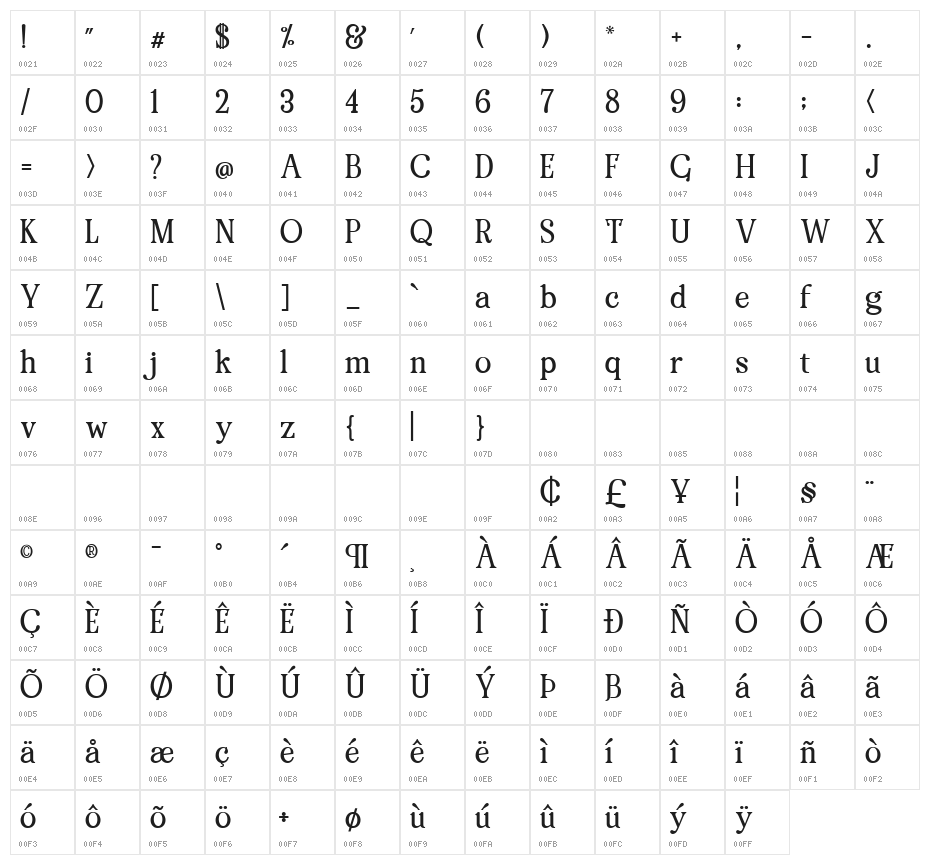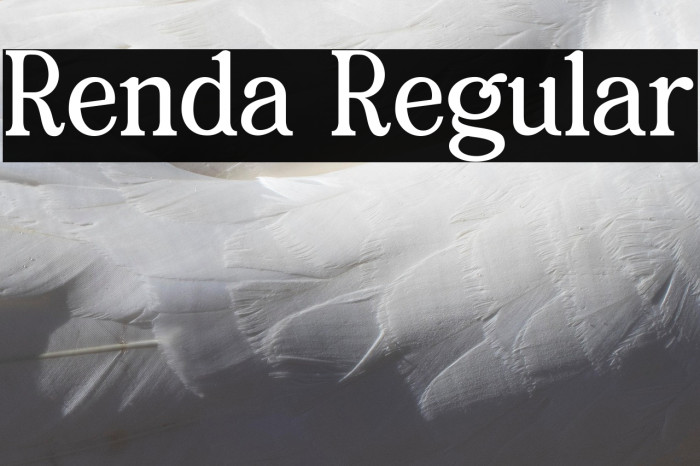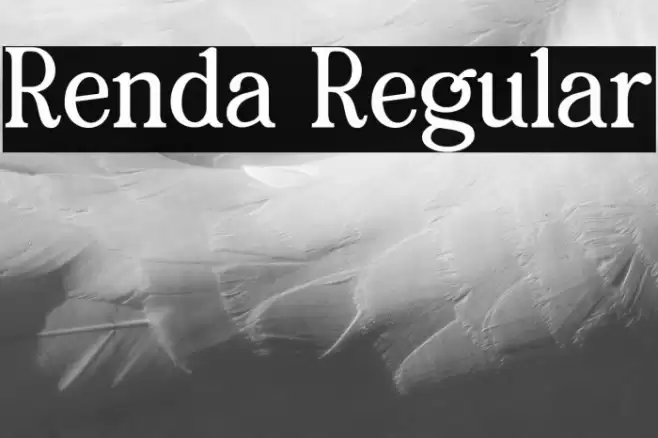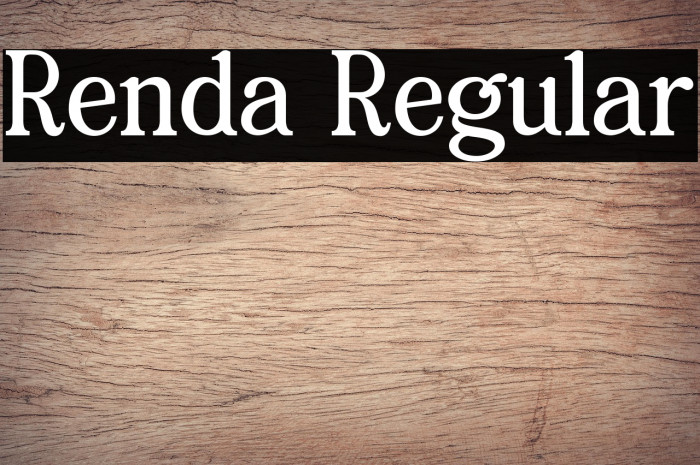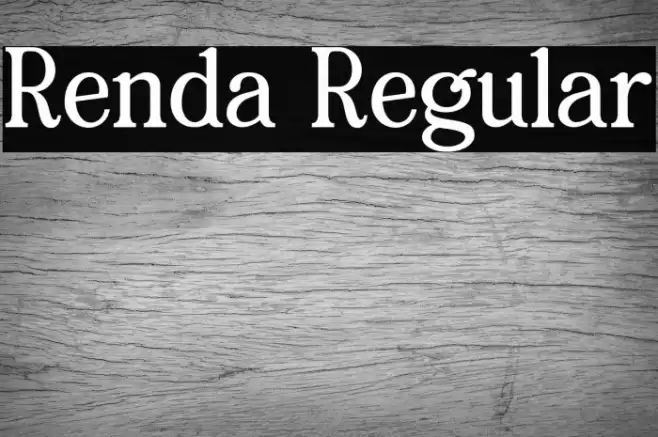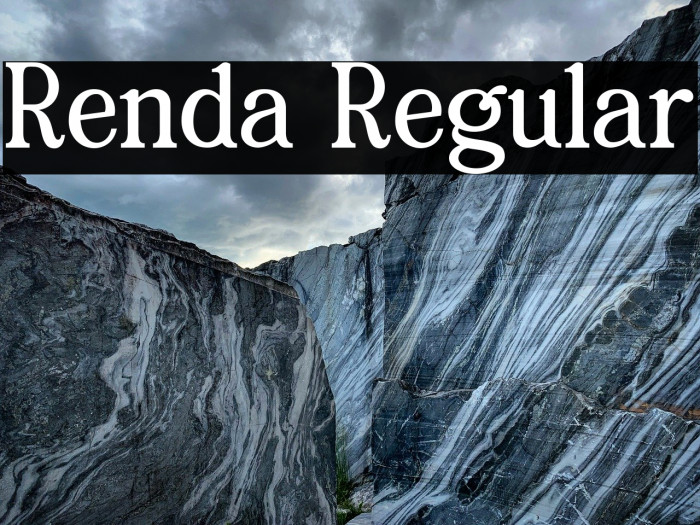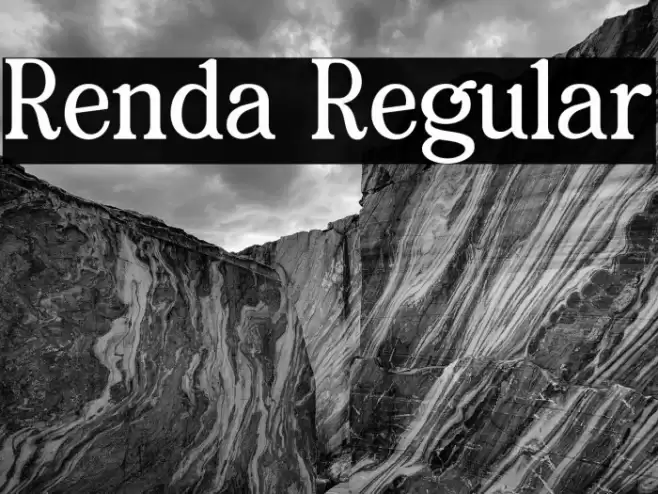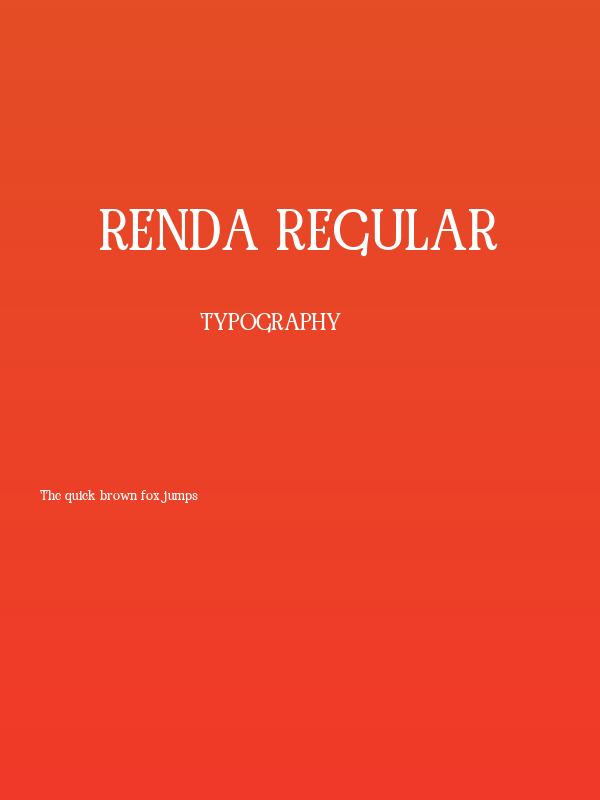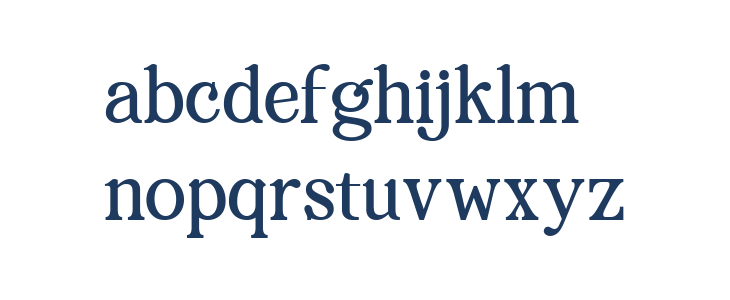
Renda Regular Font
Renda Regular Description
This font features a classic serif style with elegant and pronounced serifs that add a touch of sophistication. The uppercase letters are bold and commanding, while the lowercase letters maintain a balanced and readable form. The numerals are clear and distinct, making them suitable for a variety of uses. Special characters are well-defined, enhancing the font's versatility. The overall design is timeless, making it suitable for both traditional and modern applications.
| Proposed Projects | Ideal for editorial design, book covers, formal invitations, and branding projects that require a classic and elegant touch. |